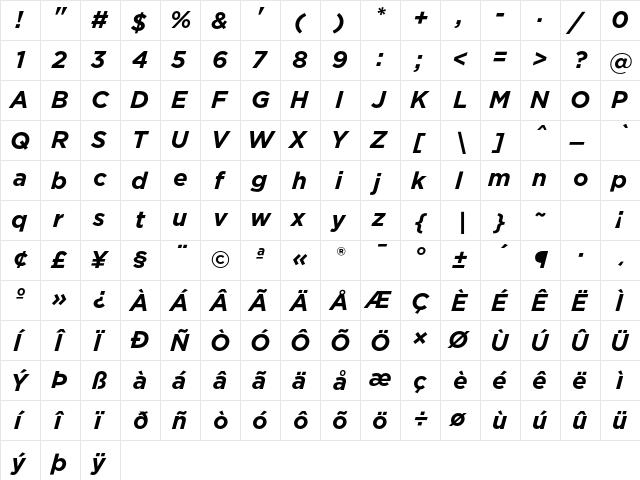
Gotham Bold Italic
| Foundry | Hoefler & Frere-Jones |
| Designer | Tobias Frere-Jones |
Design Context for Gotham Typeface
Gotham is a composed and adaptable typeface that performs quietly and consistently across a wide range of design contexts. The dynamic lean of this cut emphasises speed and emphasis in any layout. Its bold stroke weight gives it real presence on the page.
Pro Tip: Try Gotham for annotation and caption copy alongside an upright companion — the contrast in angle creates a dynamic but ordered typographic system.